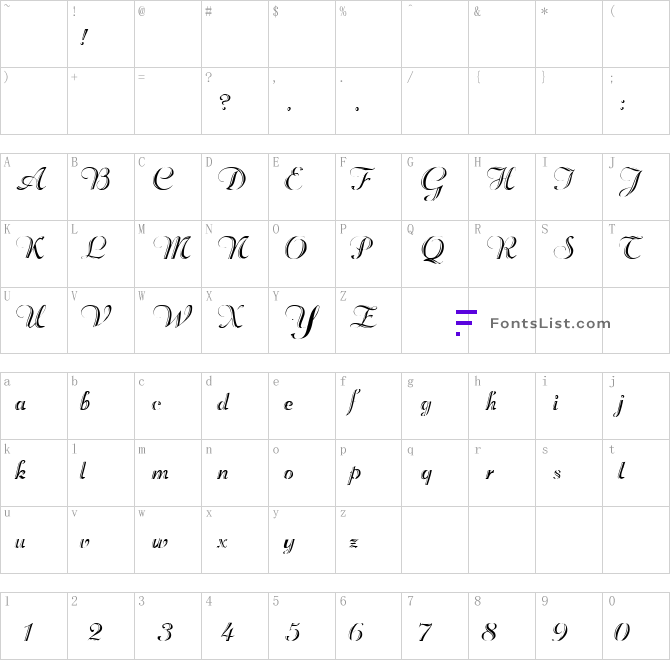
- Font Name:Beachman Script
Beachman-Script.ttf is a very beautiful artistic font, Beachman-Script.ttf is widely used in the design and printing of various books and pictures,Beachman-Script.ttf has a strong visual impact,Beachman-Script.ttf is a commonly used font in newspapers, magazines and books, and is used in posters, e-commerce Poster design, store design, logo design, font design and other fields.Beachman-Script.